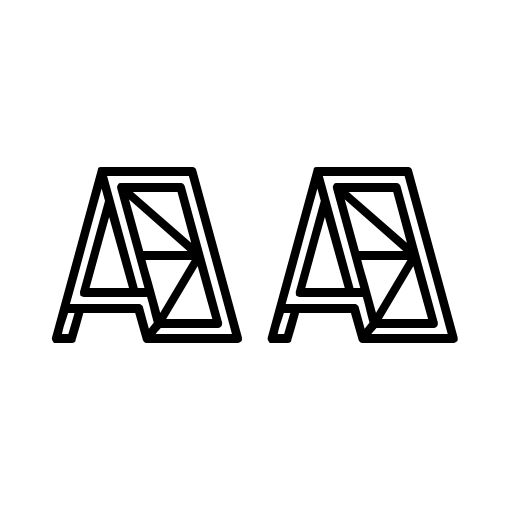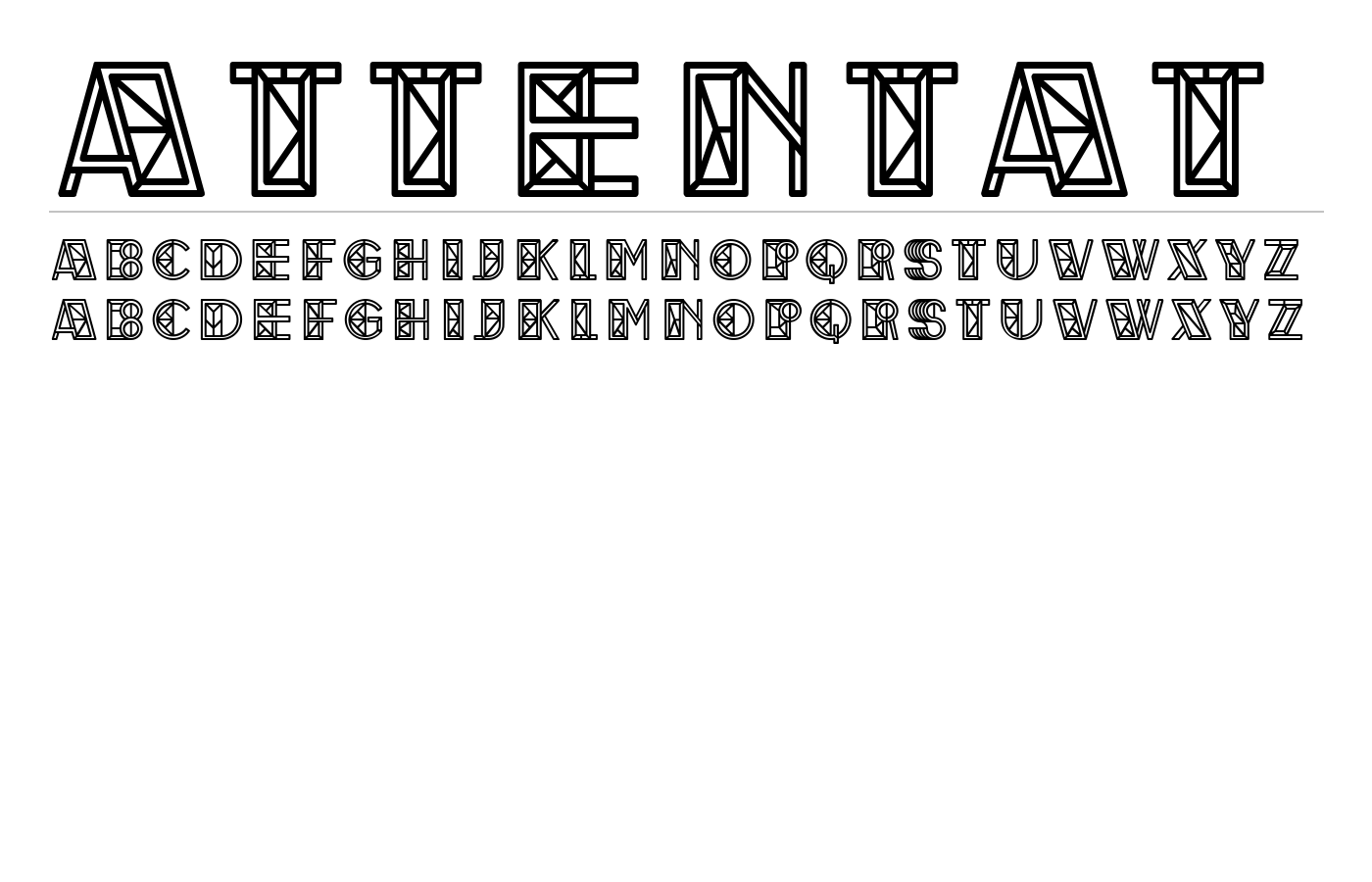
Attentat is a decorative, geometric sans serif font characterized by its bold, outlined letterforms filled with abstract angular shapes. Its modern, artistic style makes it perfect for eye-catching headlines, posters, and branding that want to convey creativity and a contemporary edge. This font thrives in display uses where unique visual impact is key.
Attentat Font
About Attentat Font
| Font family | Attentat Font |